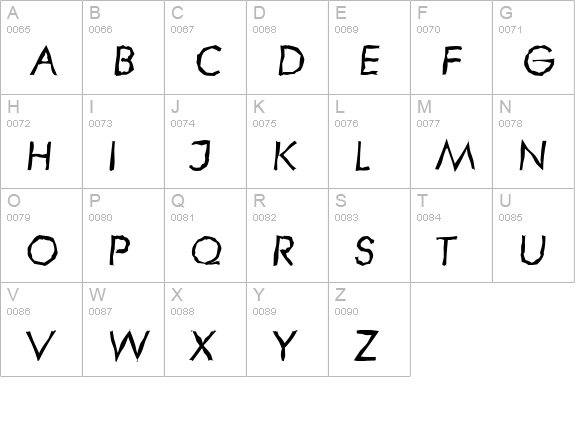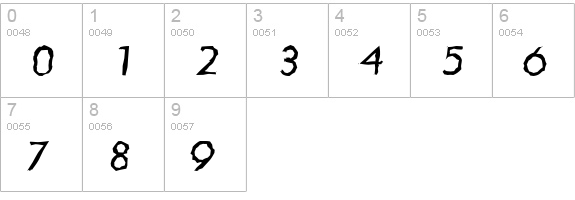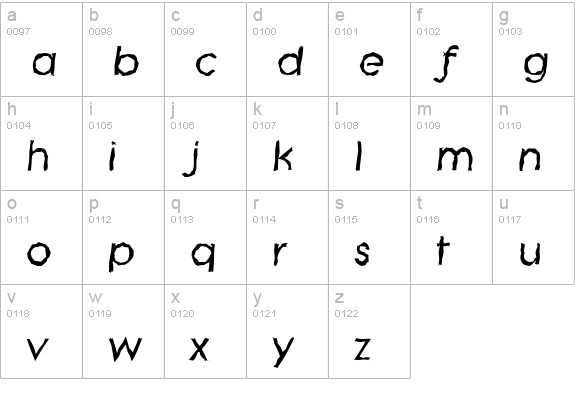
LiteraRandom-BoldItalic Font Details
Introducing LiteraRandom-BoldItalic font, a striking and versatile typeface that effortlessly combines boldness with a touch of elegance. This unique font exudes a sense of modernity and sophistication, making it perfect for a variety of design projects. Featuring a bold and italic style, LiteraRandom-BoldItalic font is sure to make a statement and capture attention. Its distinctive letterforms and sharp angles add a dynamic flair to any text, making it stand out from the crowd. What's even better is that LiteraRandom-BoldItalic font is available for free download at FontsMarket.com. Yes, you read that right - this stunning font can be yours at no cost, allowing you to elevate your designs without breaking the bank. So whether you're working on branding, packaging, posters, or any other creative project, LiteraRandom-BoldItalic font is here to help you make an impact. Download it now and unleash the power of this bold and stylish typeface!